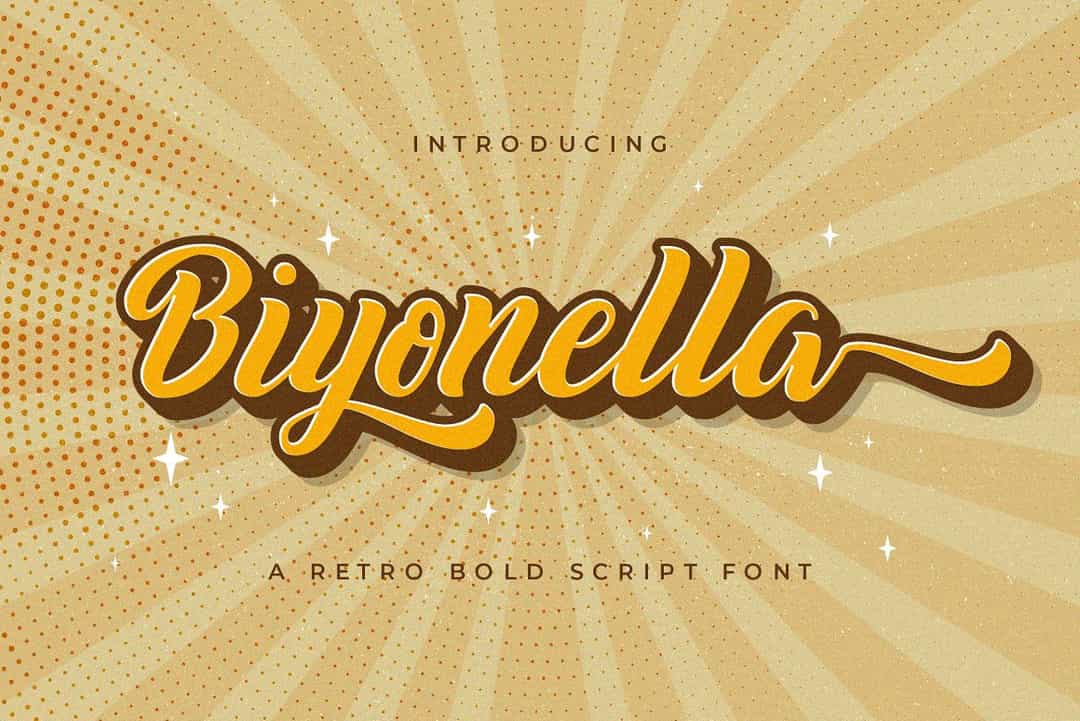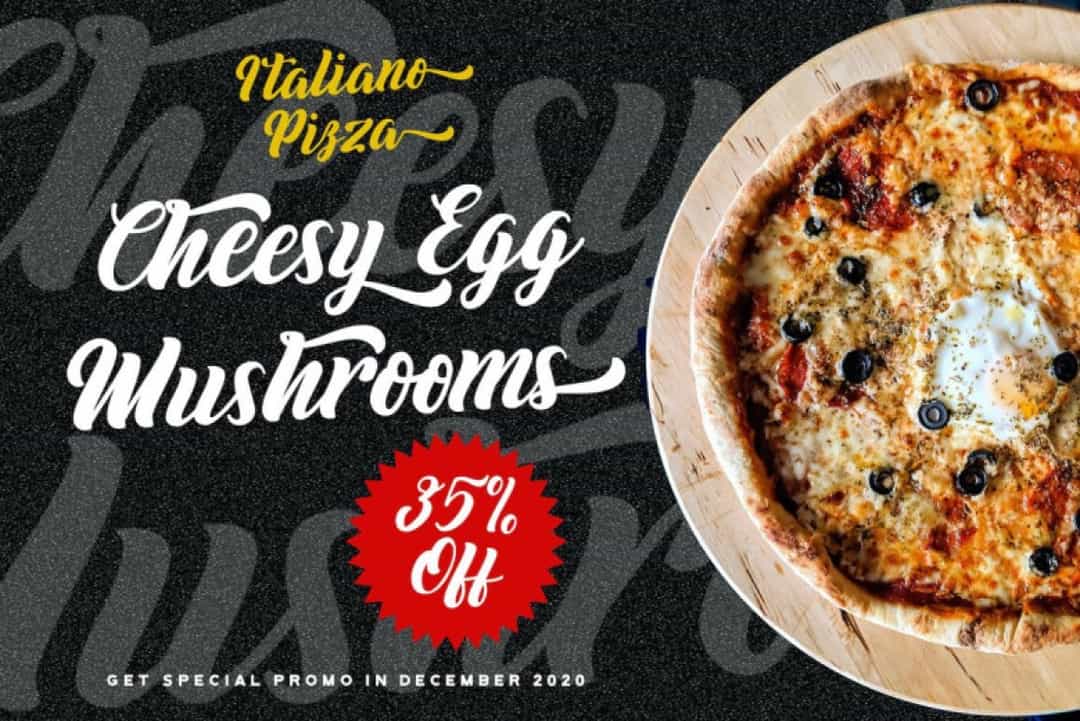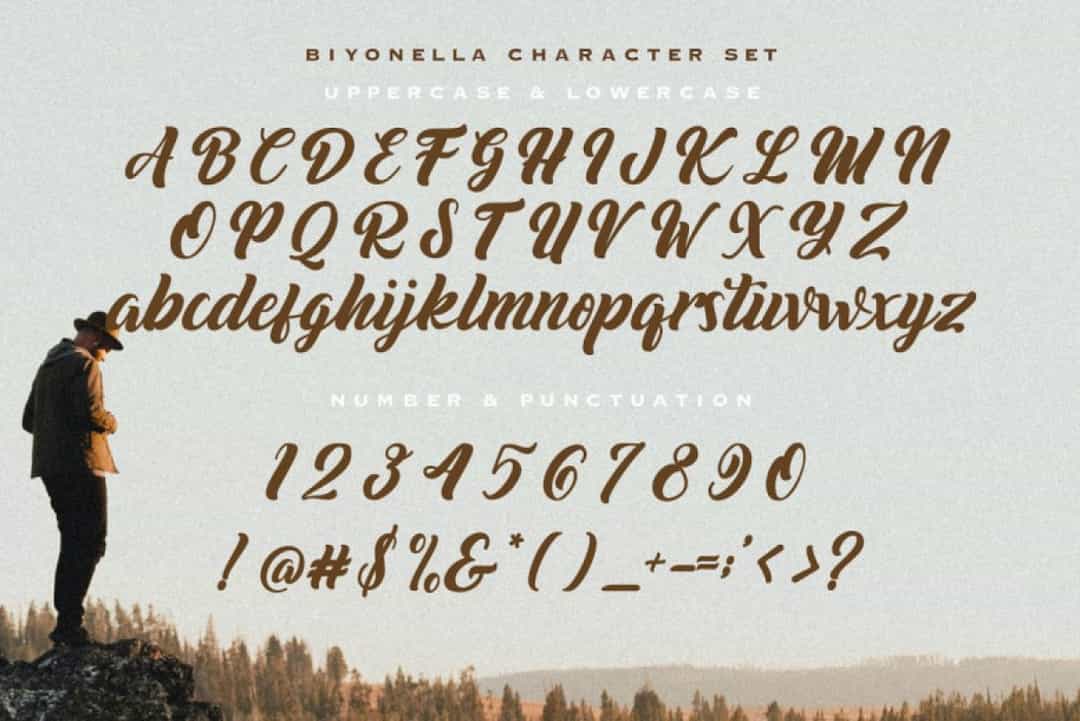
Biyonella is a retro font from StringLabs and intended for use in branding with its strong and yet aesthetic appeal. If you are in search of creativity and added color to your projects, with a classic retro design, Biyonella can help! Add it today and you will realize how powerful branding is in making them a reality.